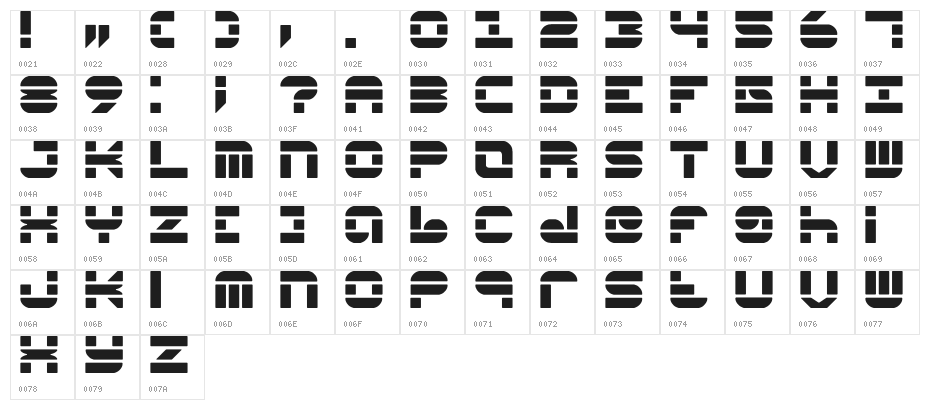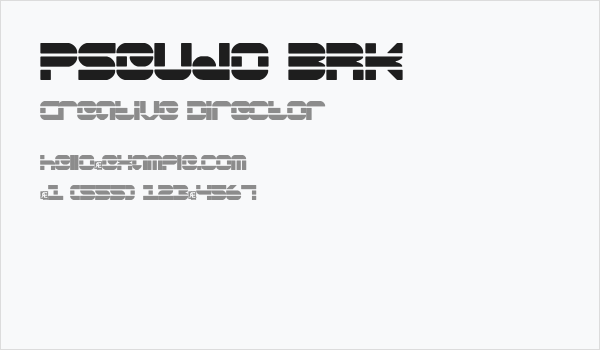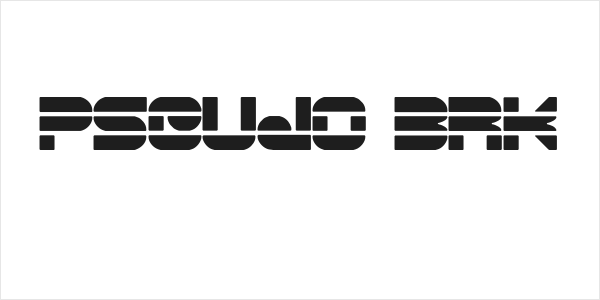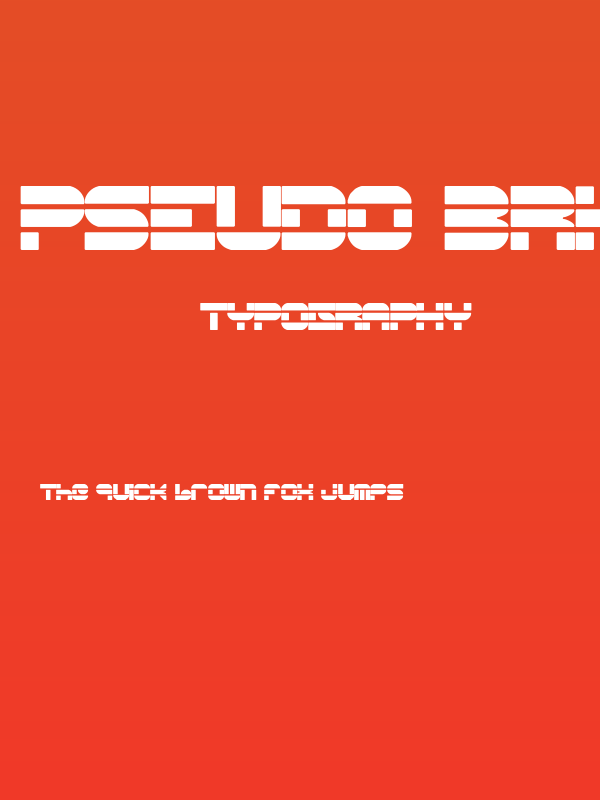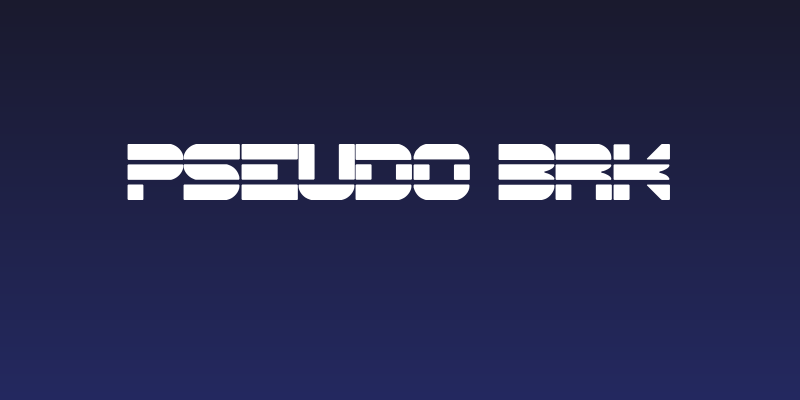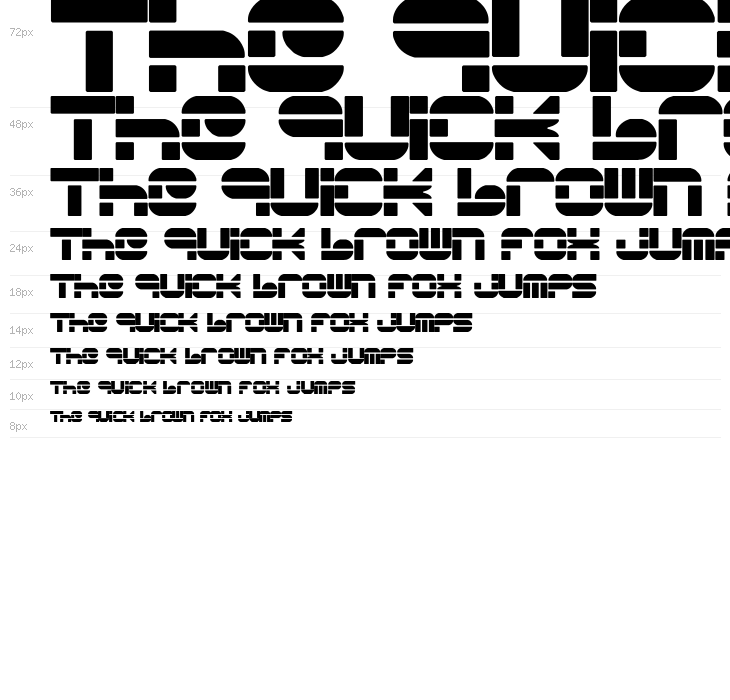
Pseudo BRK Font
Pseudo BRK Description
This font features a bold, geometric design with a futuristic and digital aesthetic. The characters are constructed from solid blocks, creating a stencil-like appearance with consistent gaps and breaks within each letter. The uppercase and lowercase letters share a similar structure, emphasizing uniformity and cohesion. The numerals and special characters follow the same design principles, ensuring a cohesive look across all elements. The font's unique style makes it stand out, ideal for projects that require a modern and edgy feel.
| Proposed Projects | Ideal for digital art, sci-fi themed projects, technology branding, and modern posters. |